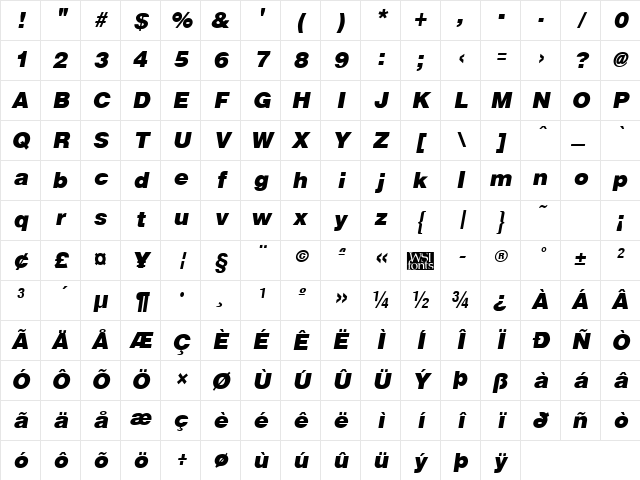
ArenaBlack Italic
ArenaBlack Family
ArenaBlack Italic
Design Context for ArenaBlack
ArenaBlack is a composed and adaptable typeface that performs quietly and consistently across a wide range of design contexts. The slanted form adds forward momentum and visual energy.
Pro Tip: Use ArenaBlack for emphasis, pull quotes, and subheadings where its slanted energy can add rhythm to the layout.